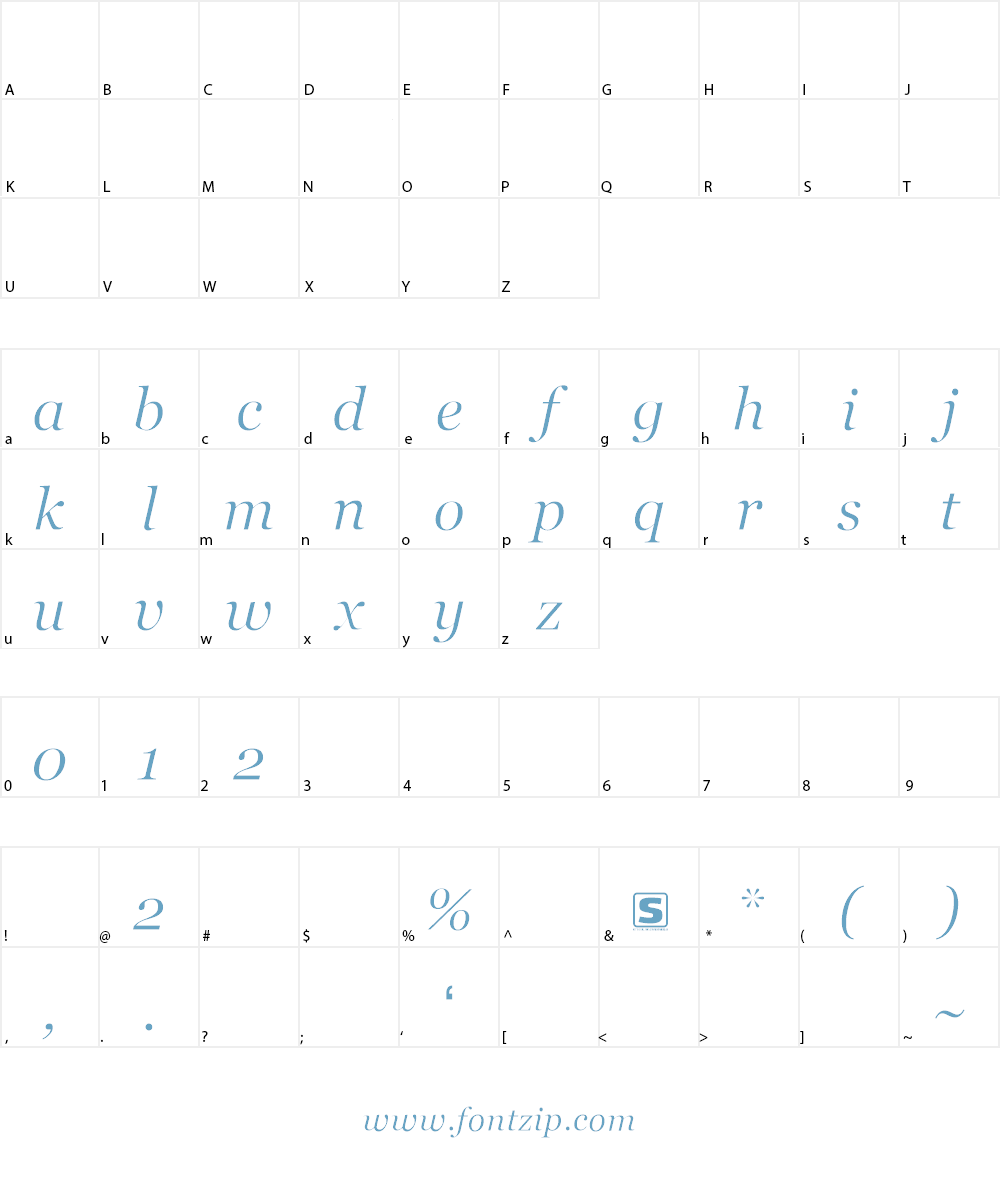
Where Matthew Carter's original, award-winning Georgia typeface designed in 1993 for Microsoft was made specifically for screen reading, SD Georgia Light Italic was designed with books and magazines in mind.
Tweaked and slimmed specially for high-density web and offset printing, SD Georgia Light Italic is a transitional serif typeface that accentuates influences from Clarendon-style type.
This is a demo set of the capital letters only and some punctuation to preview and tryout...